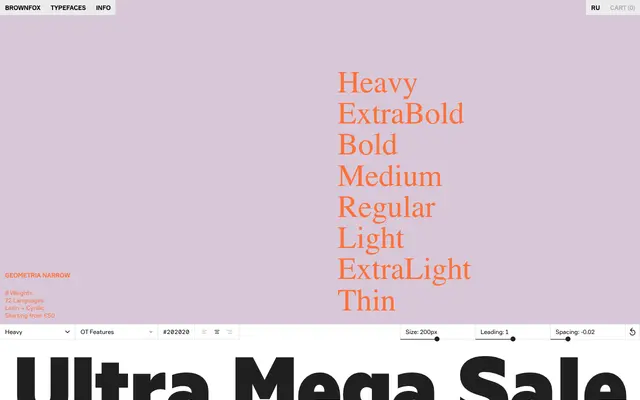
Geometria Narrow
Brownfox · Arthur Lebsak
A narrow geometric sans in eight weights with broad Latin and Cyrillic coverage, drawn by Arthur Lebsak for Brownfox.
Geometria Narrow offers the clean, circular construction of a geometric sans compressed into a narrow width, making it suited to tight layouts and dense text settings. Eight weights run from Thin to Heavy, covering 72 languages across Latin and Cyrillic scripts. It is the condensed sibling of the Geometria family, extending the range for space-constrained editorial and display use.
Geometria Narrow is a condensed geometric sans-serif, sharing the clean circular forms and rational construction typical of the geometric grotesque genre, offered in a narrow width variant of the Geometria family.